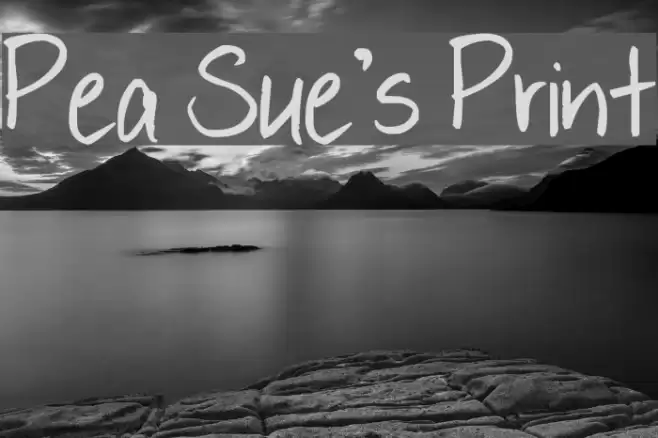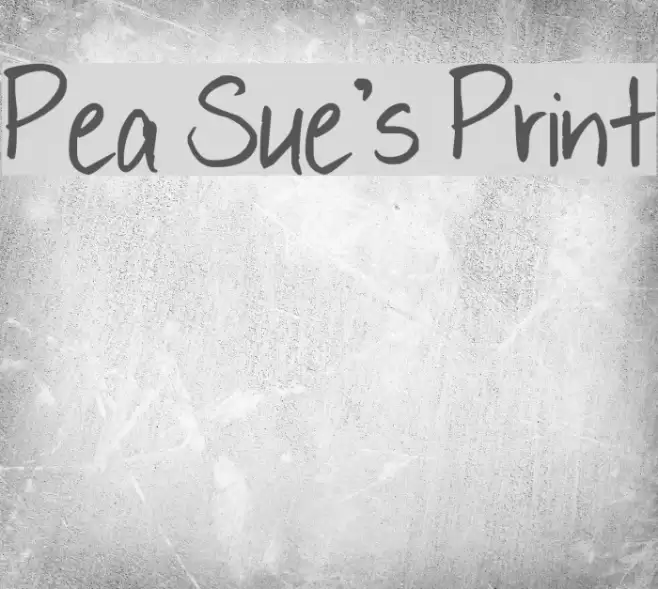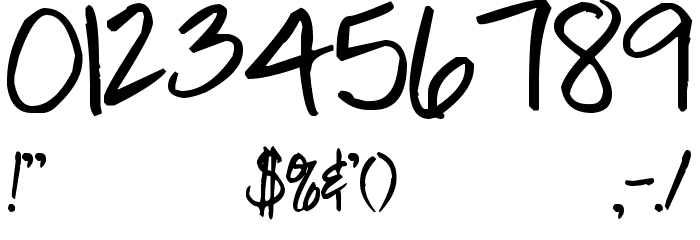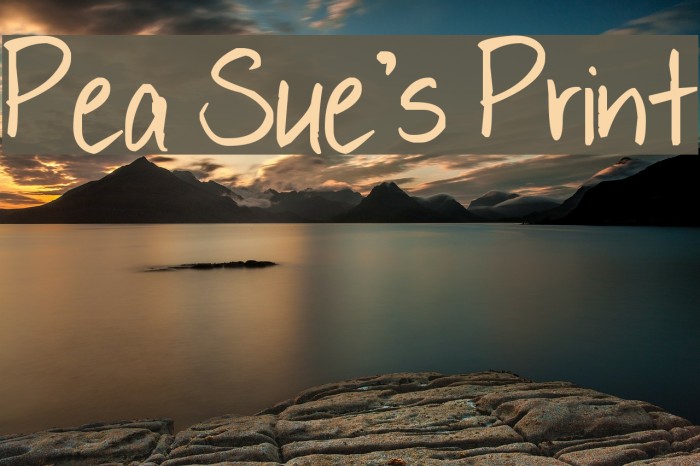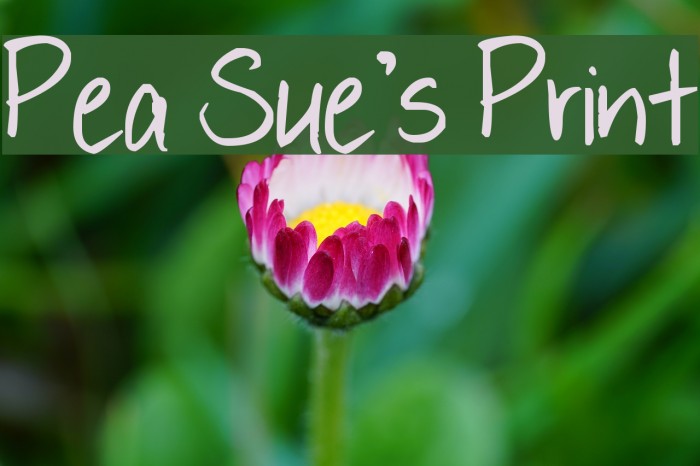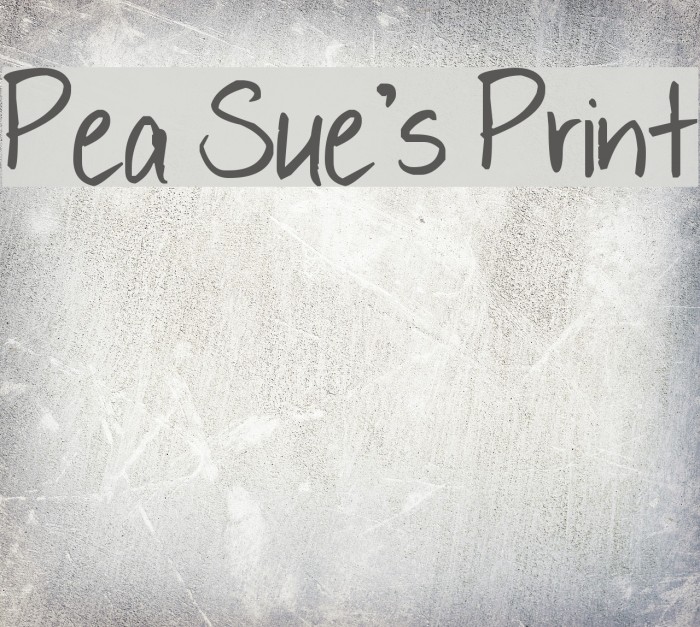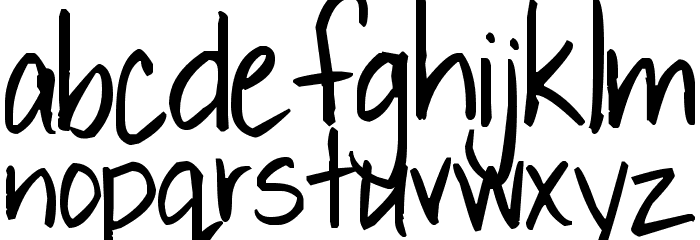
Pea Sue's Print Font
Pea Sue's Print Description
This font features a playful and casual handwritten style, characterized by its irregular strokes and informal appearance. The letters are slightly slanted, giving a dynamic and lively feel. The uppercase and lowercase letters maintain a consistent style, with rounded edges and a natural flow. Numbers and special characters are integrated seamlessly, maintaining the font's overall whimsical and friendly aesthetic. The font's design is approachable and personal, making it suitable for projects that require a touch of personality and warmth.
A playful, casual handwritten font with a lively and dynamic style from Uncategorized fonts.
- Proposed Projects: Ideal for greeting cards, personal blogs, children's books, and informal invitations.
- Overall Style: Casual
- Use Case: Headlines, Informal text, Personal projects